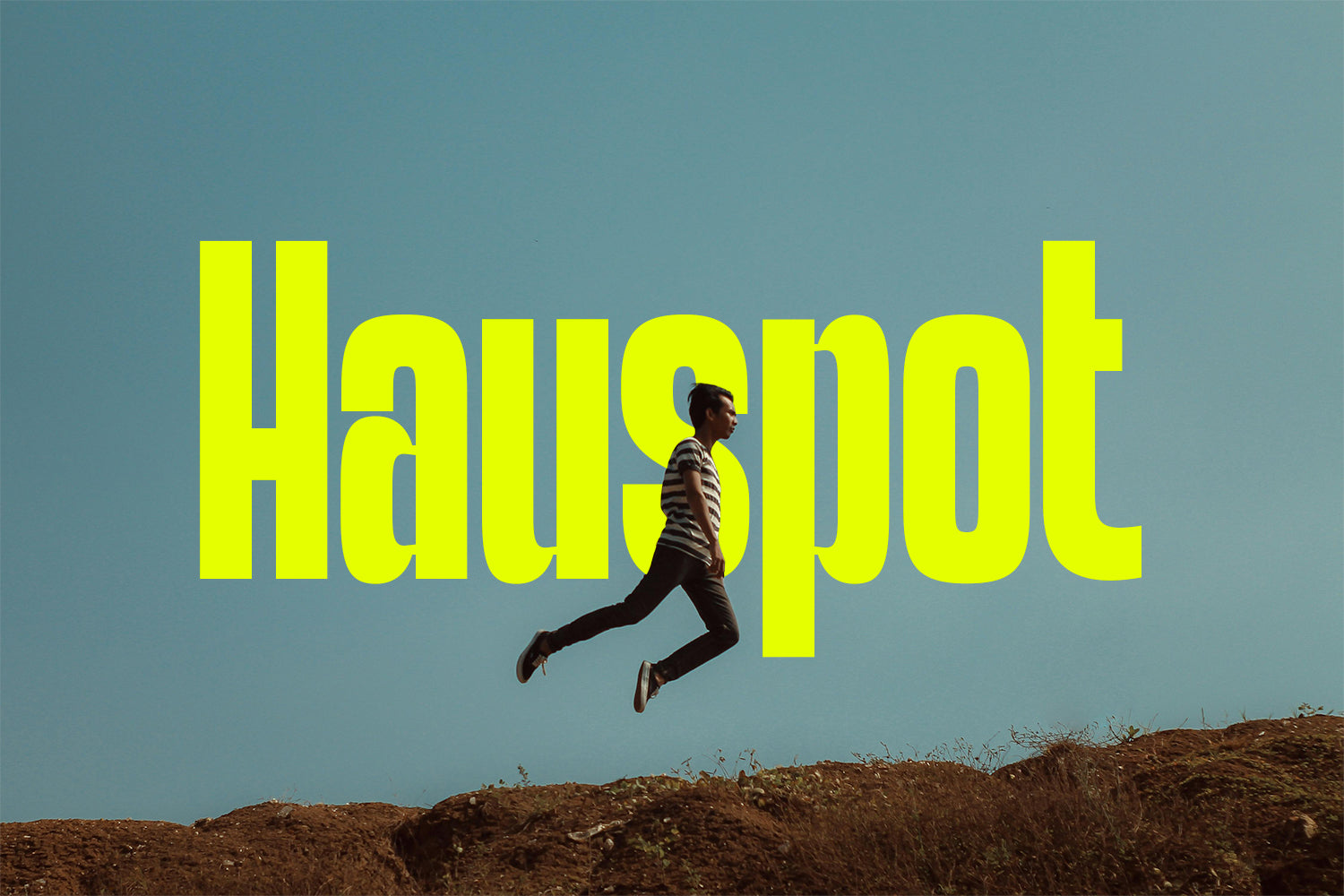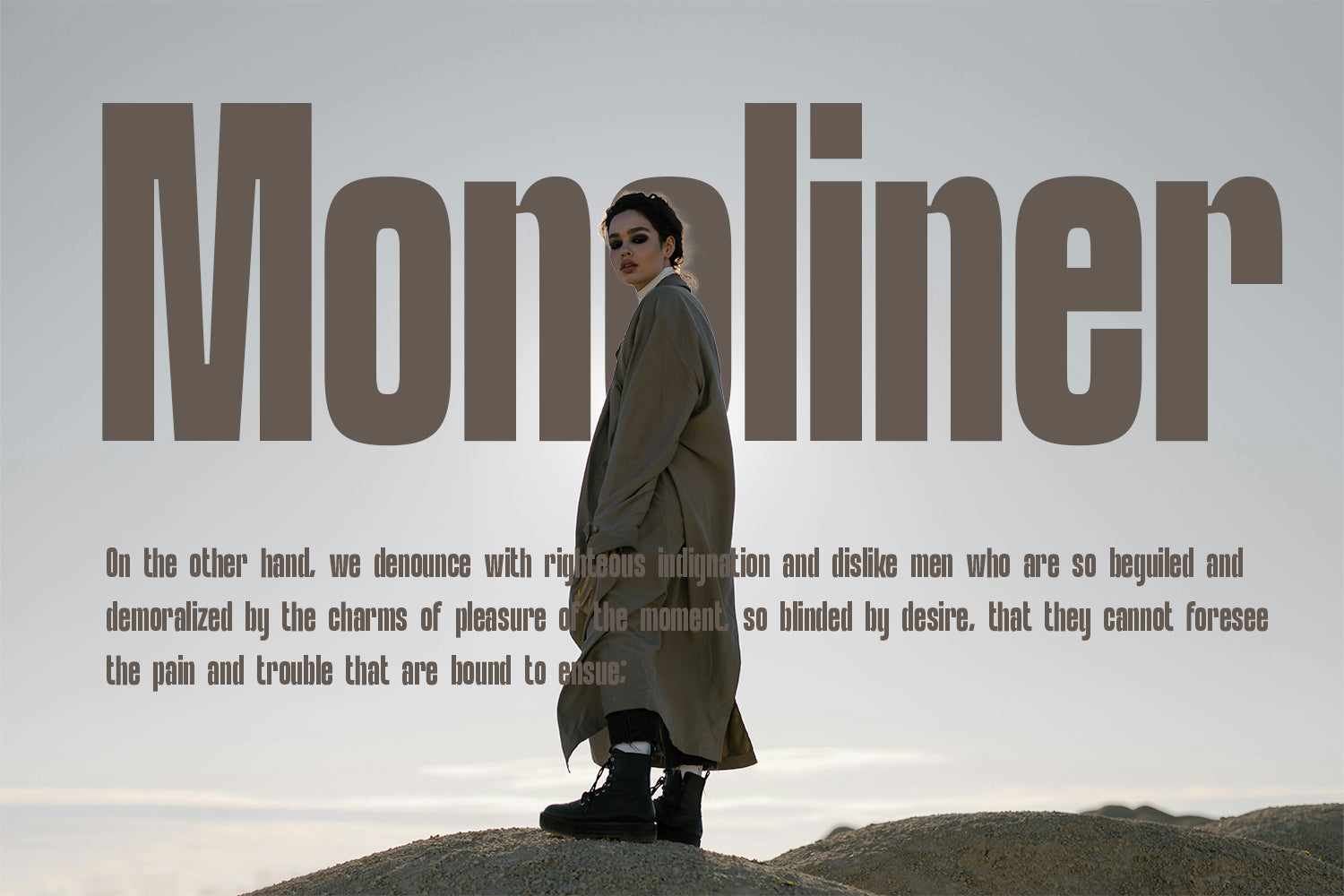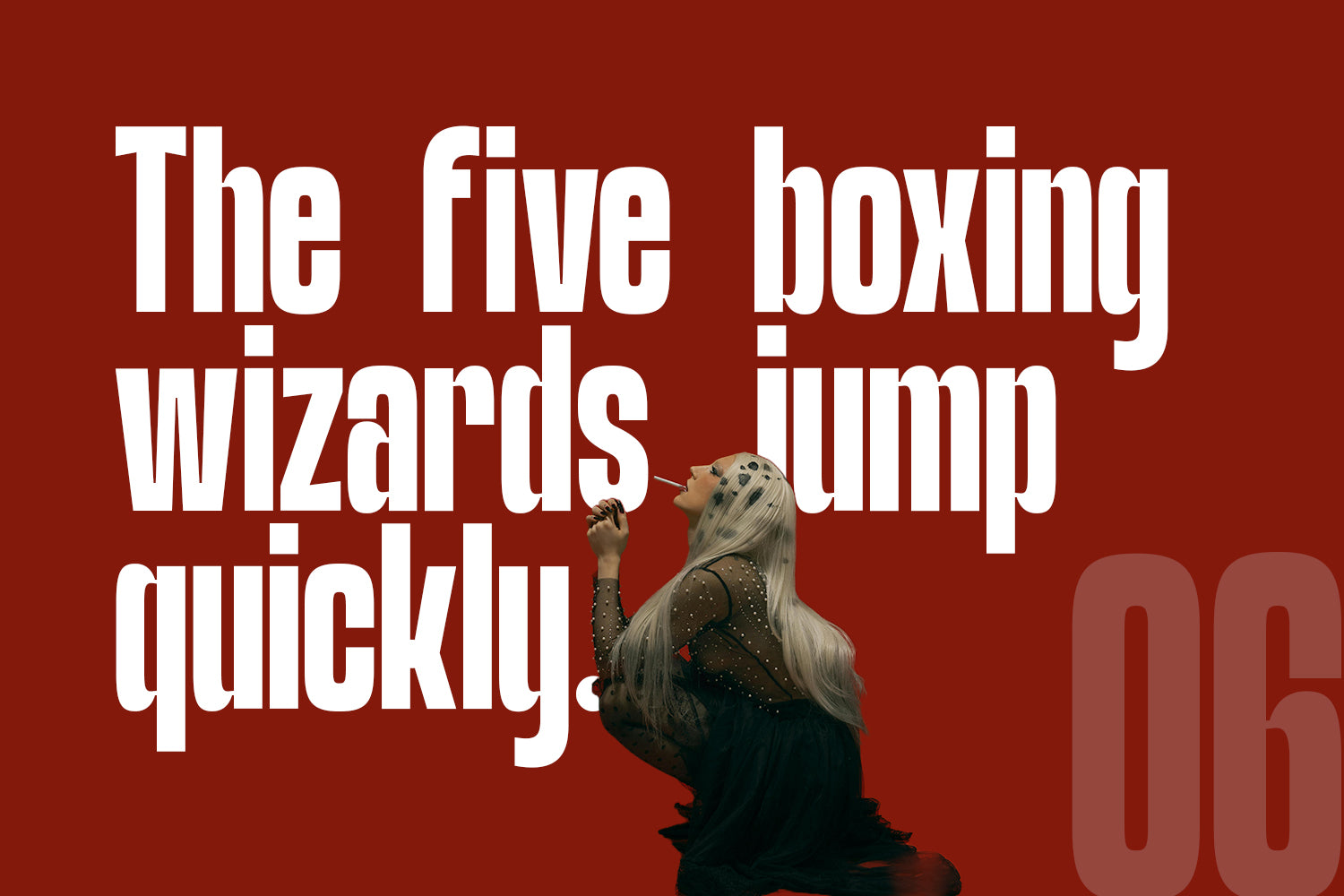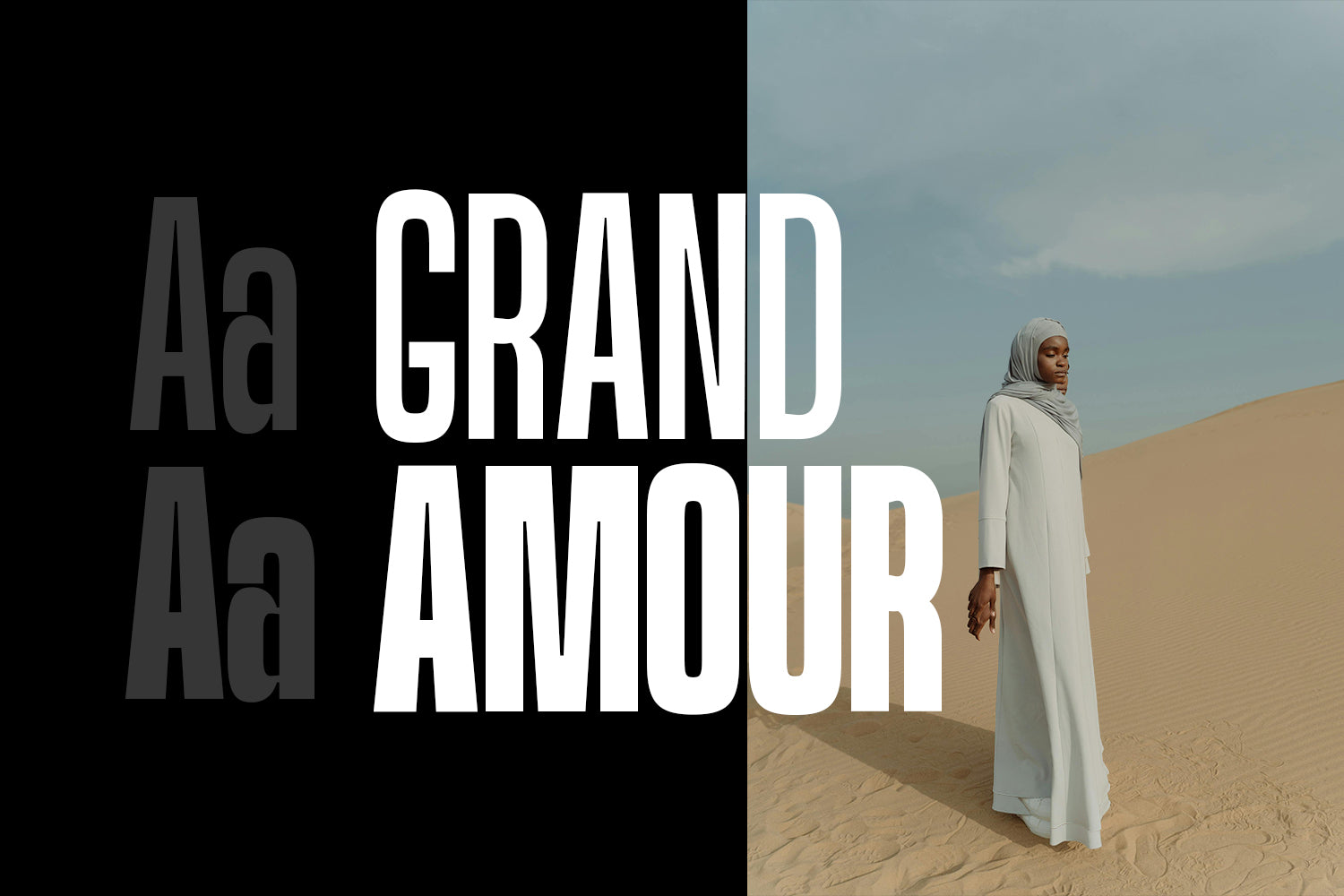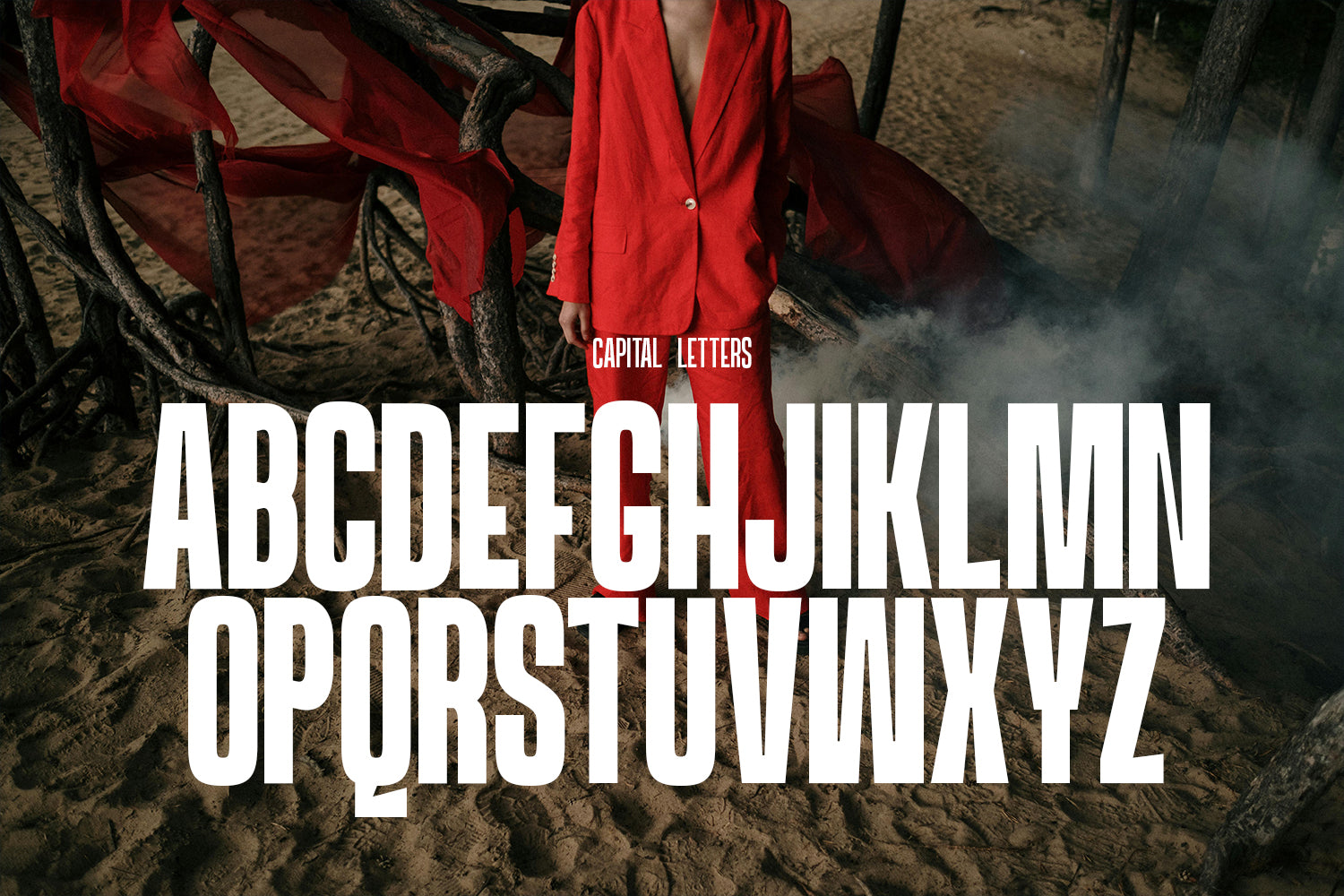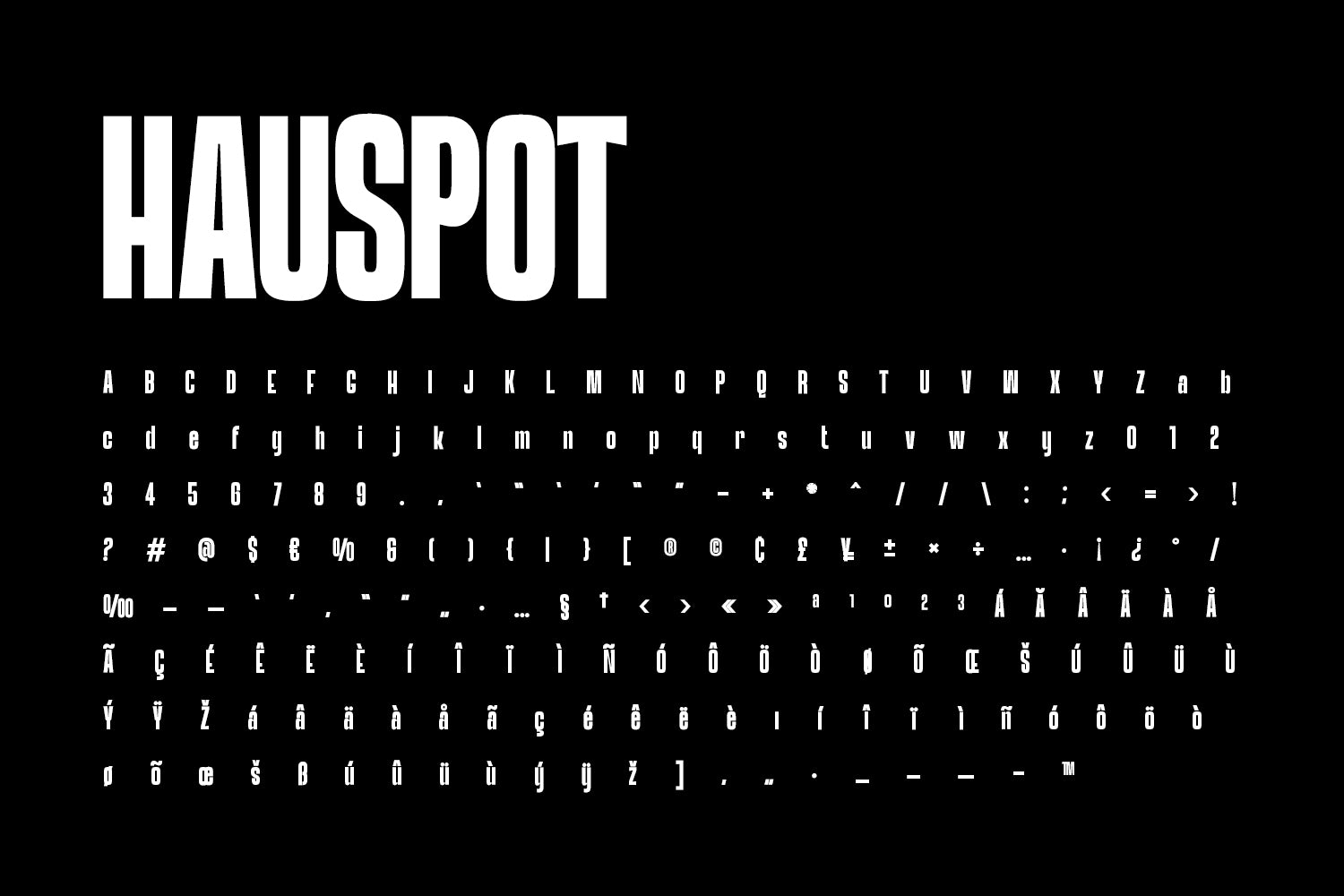
Hauspot Display
Hauspot is a neatly and precisely designed modern typeface created especially for branding, posters, and bold visual communication. With its strong letterforms and clean proportions, Hauspot delivers a confident, contemporary look that instantly elevates headlines and brand identities.
Designed with clarity and versatility in mind, Hauspot works beautifully across both digital and print projects. Whether you’re crafting striking posters, magazine layouts, logos, or cover designs, this font maintains excellent readability while making a powerful visual statement.
The font family includes four carefully crafted weights, allowing designers to create clear hierarchy and expressive layouts with ease. From minimal modern branding to bold editorial headlines, Hauspot adapts seamlessly to a wide range of creative needs.
Key Features
- Neatly and precisely designed letterforms
- Four versatile weights included
- Clean, modern style
- Perfect for branding, posters, headlines, magazines, covers, and more
- Professional typography with strong visual impact
Hauspot is an excellent choice for designers looking for a modern, bold, and reliable typeface that performs consistently across branding and display applications.